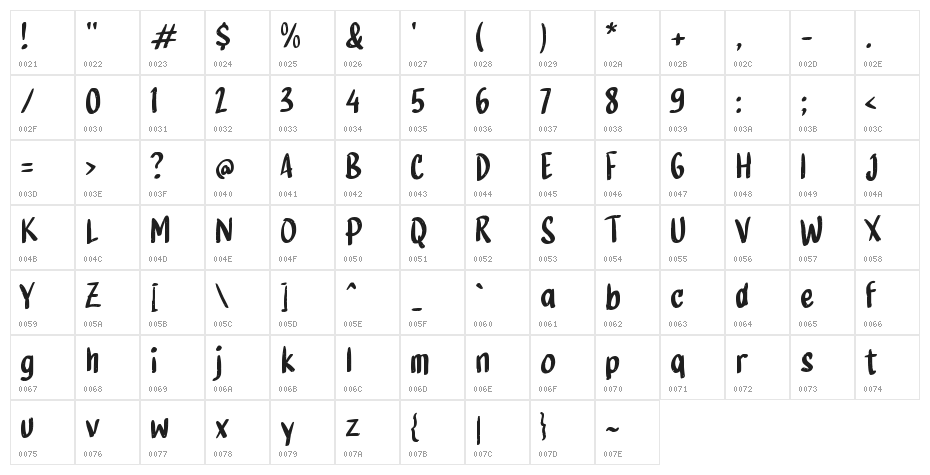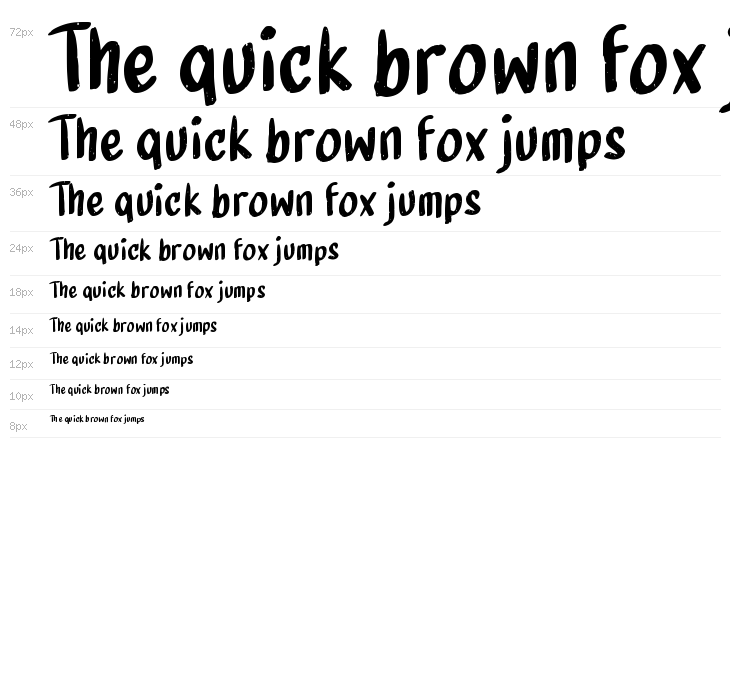
Gelodok Font
Gelodok Description
This font features a bold and playful handwritten style, characterized by its irregular, organic shapes and slightly rough texture. The letters have a casual, friendly appearance, with a noticeable hand-drawn quality that adds a personal touch. The uppercase and lowercase letters maintain a consistent style, with rounded edges and varying stroke widths that create a dynamic and lively look. The numerals and special characters are equally expressive, fitting seamlessly with the overall aesthetic. This font's unique charm makes it ideal for projects that require a touch of personality and creativity.
| Overall Style | Playful, Creative |
| Proposed Projects | Ideal for greeting cards, posters, children's books, and creative branding projects. |